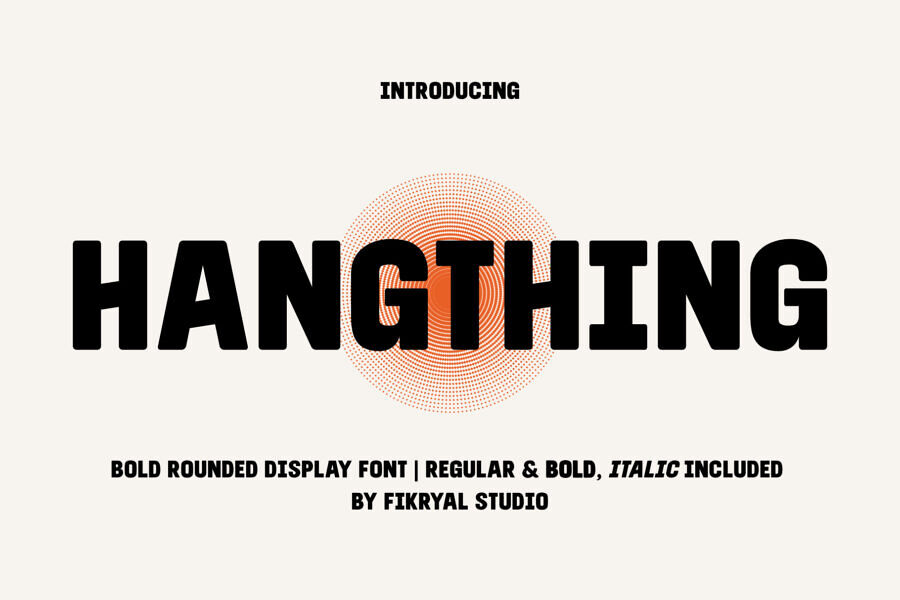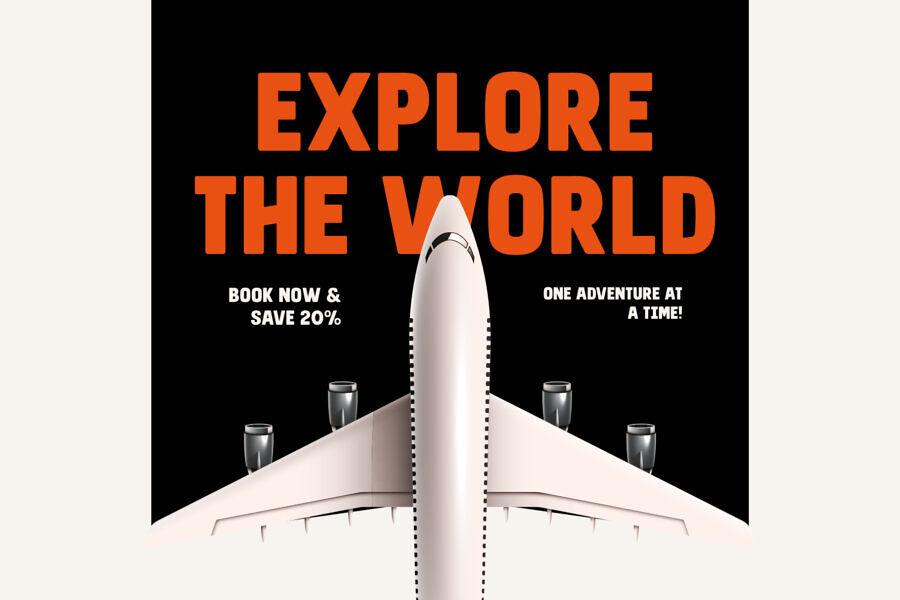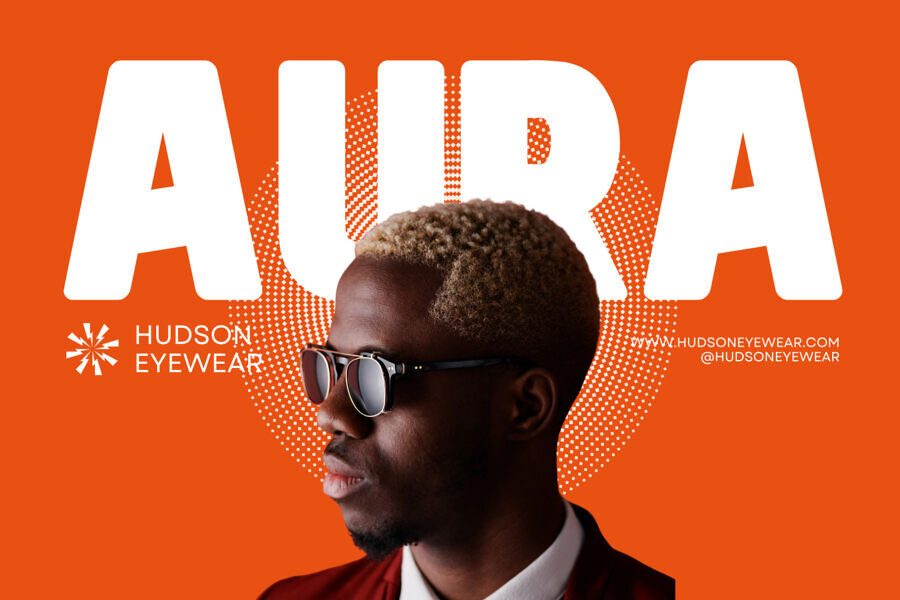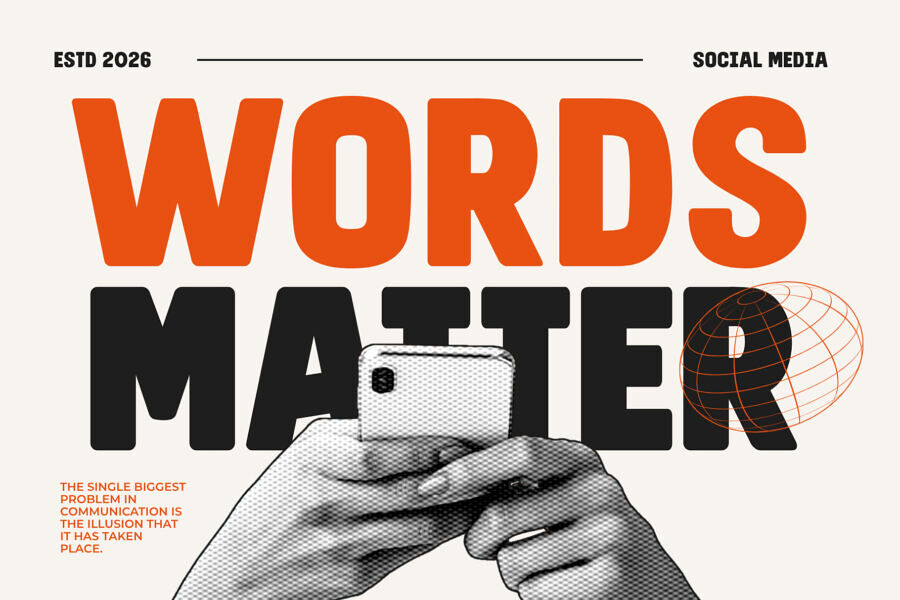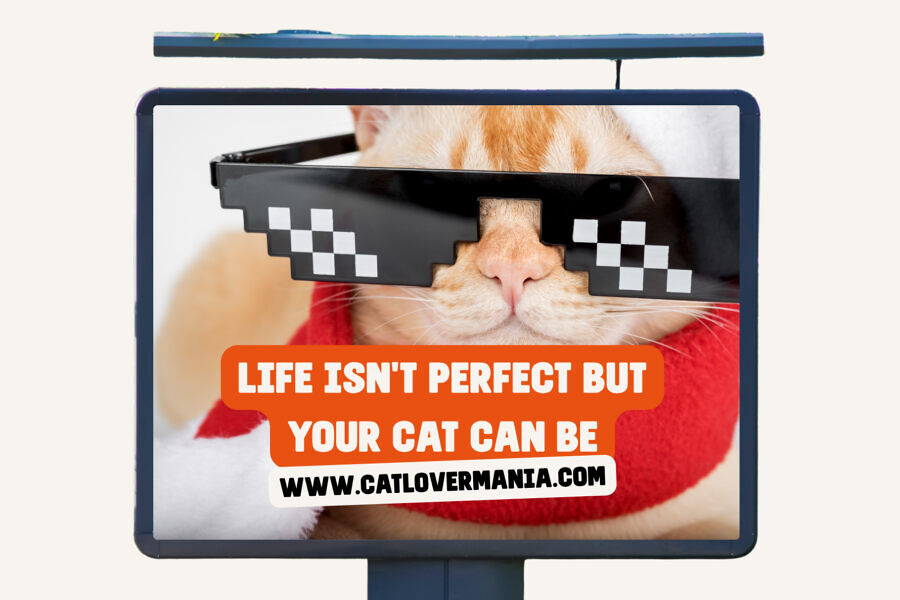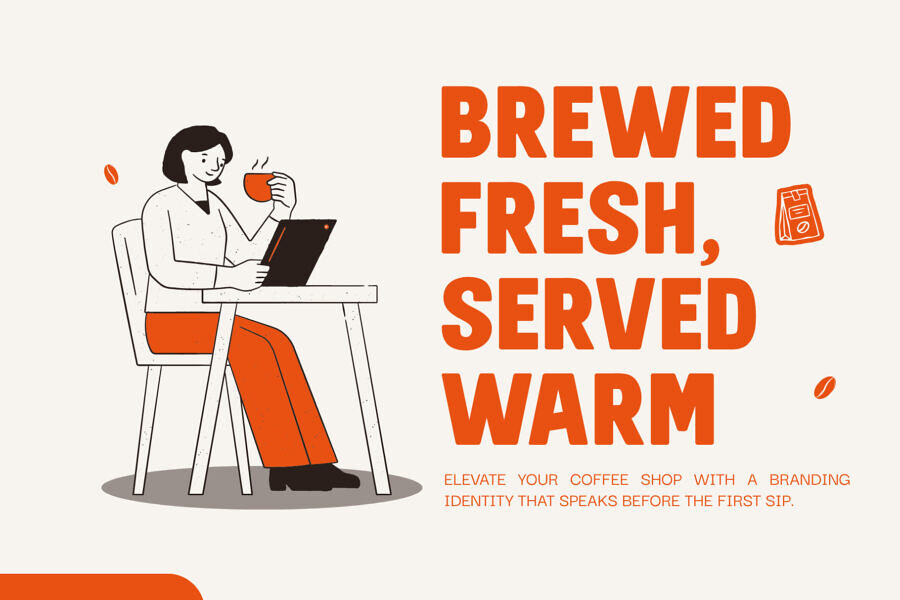
Hangthing Font Family
Hangthing is a bold rounded display font designed to bring a fun, friendly, and confident personality to your creative projects. Featuring smooth curves, thick letterforms, and a clean modern aesthetic, Hangthing delivers excellent readability while maintaining a playful and eye-catching appearance.
Whether you’re creating branding, packaging, social media graphics, posters, children’s products, YouTube thumbnails, or modern advertising, Hangthing helps your designs stand out with warmth and impact. Its versatile family includes four essential styles, making it easy to build consistent typography across different design needs.